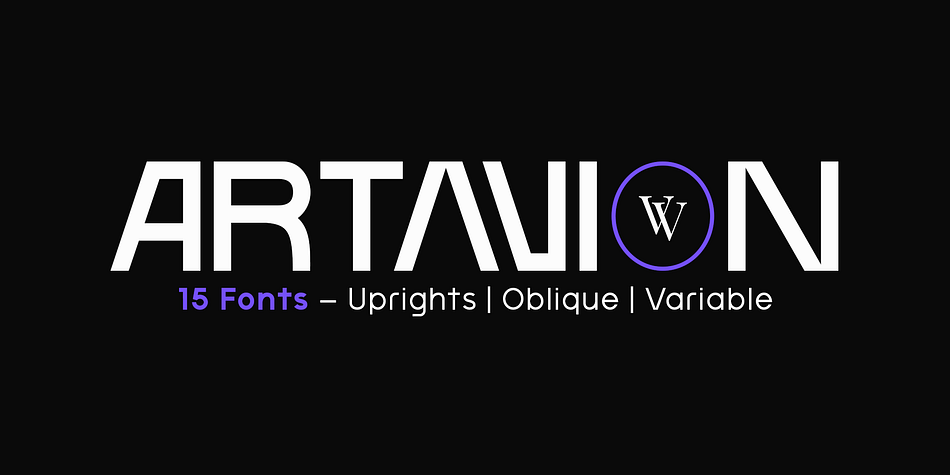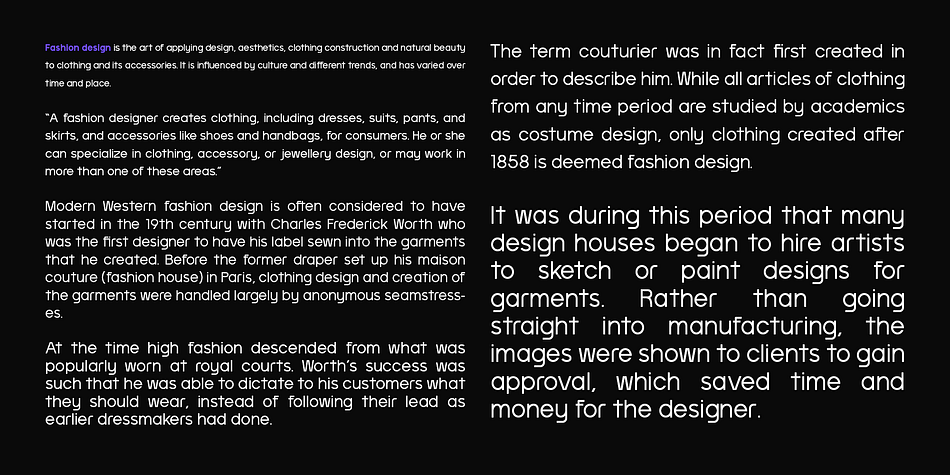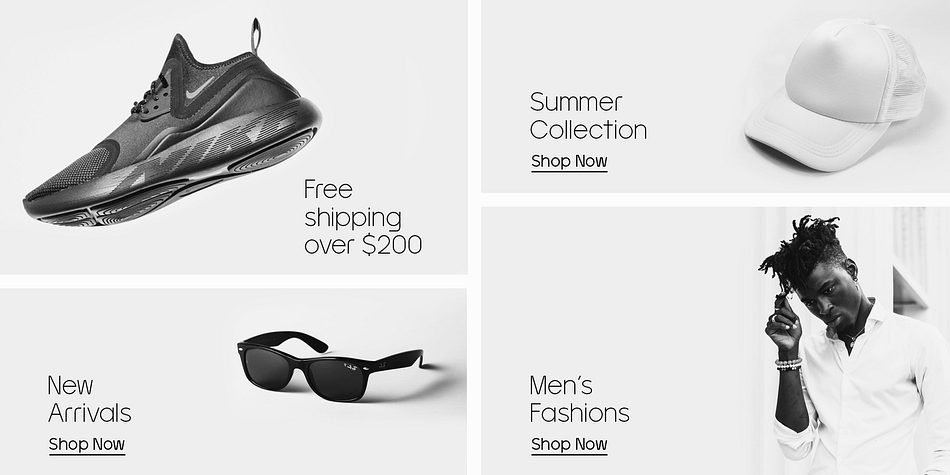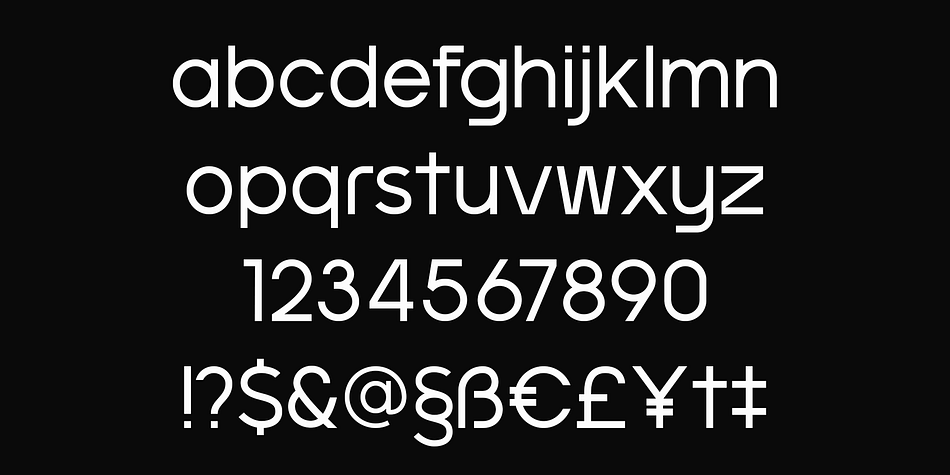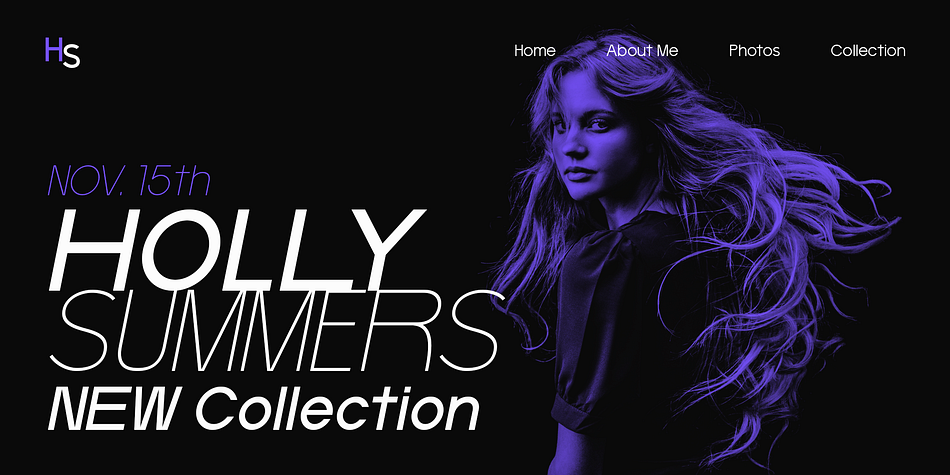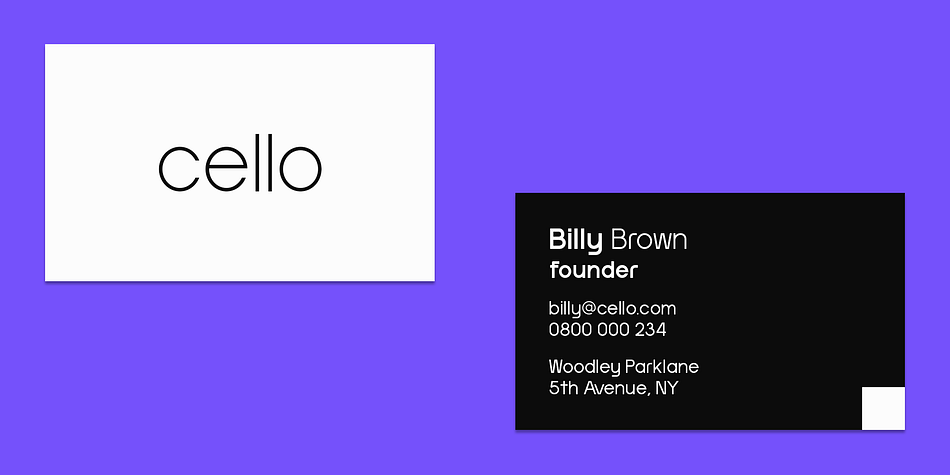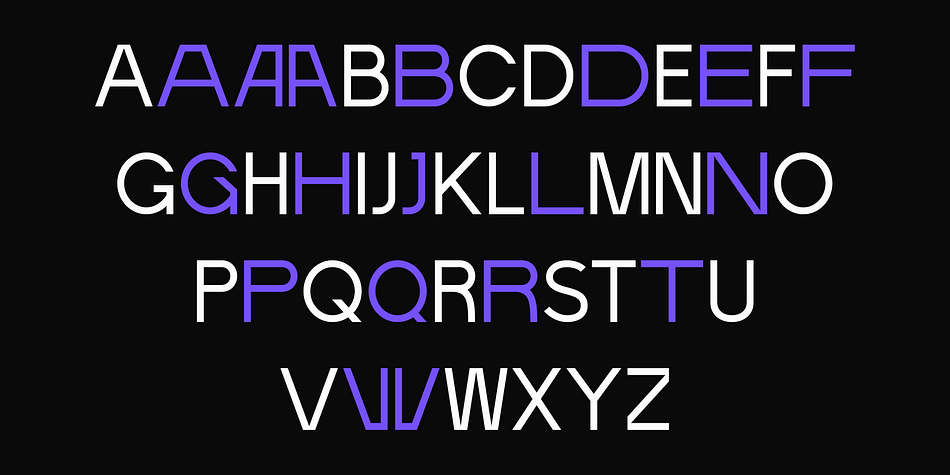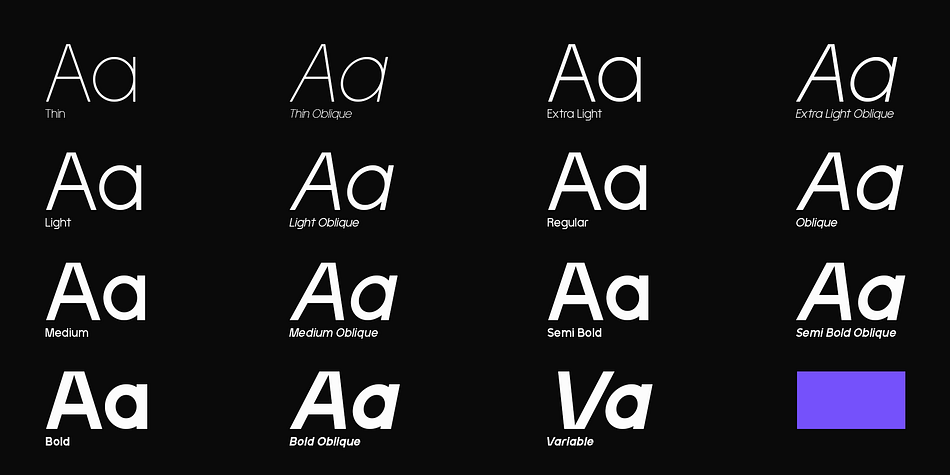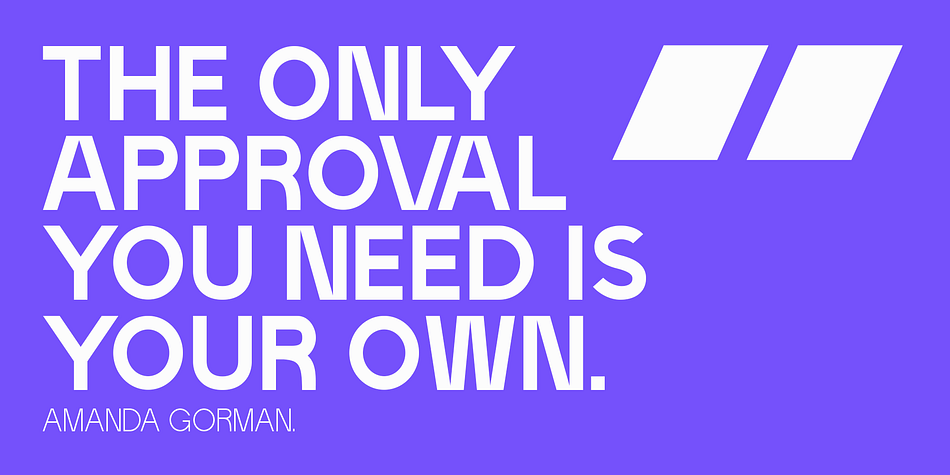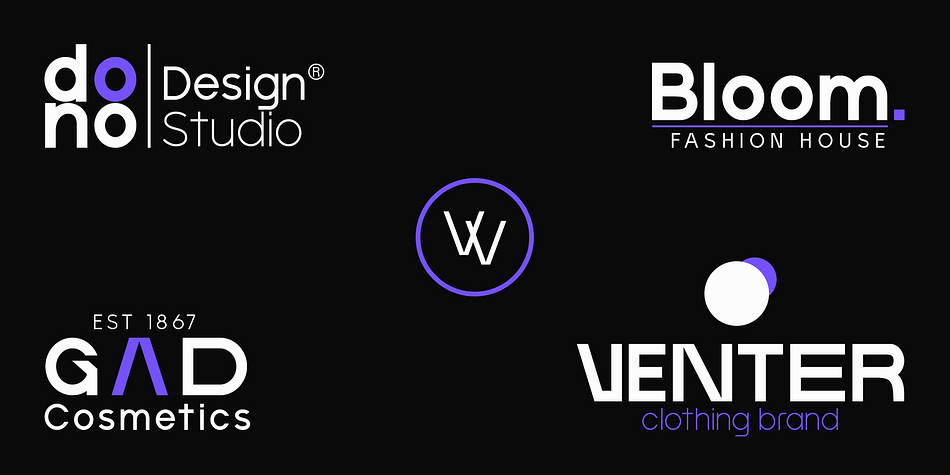
Artavion
Designed by Martin Katibi, Artavion is a sans serif font family. This typeface has fifteen styles and was published by Valentino Vergan.
Artavion is a sleek, ultra-modern variable sans serif typeface crafted for high-performance design. Blending minimalism with edge, Artavion’s clean structure and precision curves make it the perfect tool for designers who need flexibility without sacrificing bold character.
With its fully variable design, you can seamlessly fine-tune weight and style to match your creative needs—whether you’re building futuristic interfaces, standout branding, or polished editorial layouts. From light and airy to bold and commanding, Artavion adapts in real-time to elevate your design game.
Ideal for agencies, digital creators, and forward-thinking brands, Artavion delivers clarity, power, and modern sophistication in every character.
BEST FOR:
Tech & startup branding
Digital interfaces (UI/UX)
Bold editorial layouts
Marketing campaigns
Futuristic design systems
Design smarter. Create bolder. Elevate your work with the adaptable precision of Artavion.